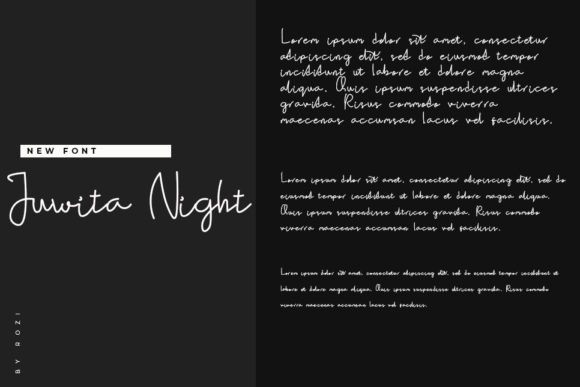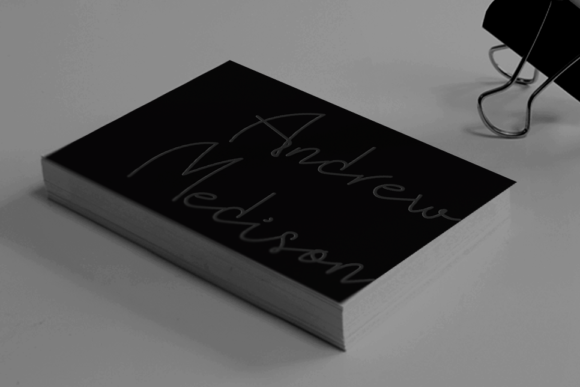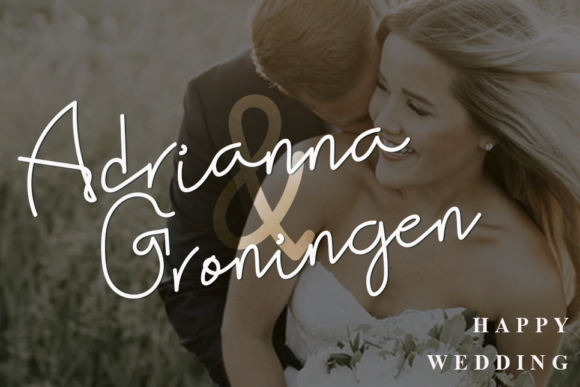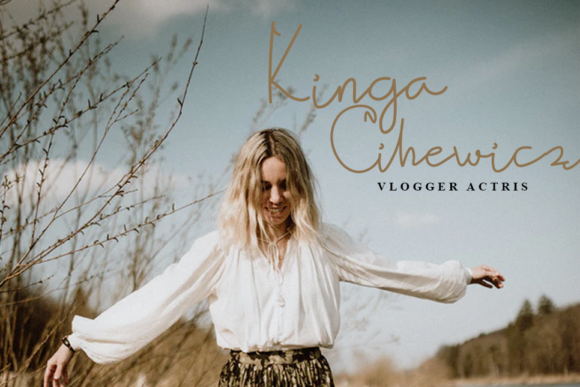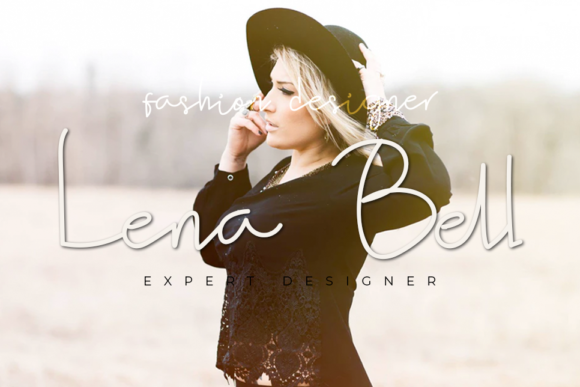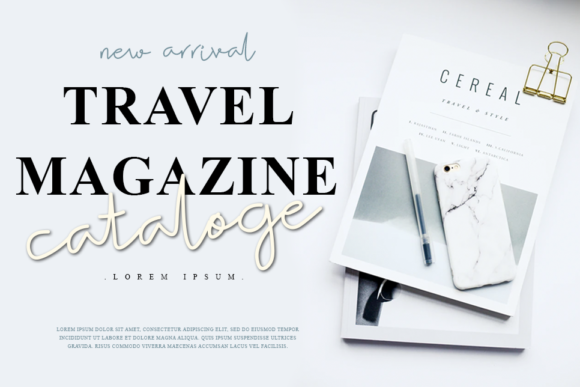
Introduction to Juwita Night Font
As designers, we’ve all been there – staring at a blank canvas, struggling to find the perfect font to bring our creative vision to life. But what if that elusive font was right in front of us, waiting to be discovered? Enter the elegant and sophisticated Juwita Night Font, a true masterpiece that seamlessly blends classic calligraphy with modern flair.
With its refined, handwritten style, the Juwita Night Font is the perfect design resource for any creative project that demands high-quality visuals. Whether you’re crafting a stunning title, designing a set of stationery, or creating a beautiful letterhead, this versatile font is sure to impress. And the best part? It’s available for free download, making it an accessible and valuable addition to any designer’s toolkit.
Key Features of Juwita Night Font
- Unique, hand-drawn design with a high level of detail, making it a valuable design resource for creative projects.
- Perfect for use in design projects that require a touch of elegance and sophistication, such as branding, invitations, or digital art.
Honest Review: Juwita Night Font
I recently stumbled upon the Juwita Night Font and was immediately drawn to its unique, elegant design. As a designer, I appreciate high-quality design resources that can elevate my creative projects, and this font definitely delivers. The transparent background and clean lines make it perfect for a variety of applications, from branding to editorial content.
Here are some of the things that work well with the Juwita Night Font:
- ✨ Unique and elegant design that sets it apart from more generic fonts
- ✨ High-quality typography that’s perfect for both digital and print applications
- ✨ Transparent background makes it easy to customize and pair with other design elements
That being said, there are a few limitations to consider:
- ⚠️ Limited character set, which may not be ideal for longer texts or body copy
- ⚠️ Not suitable for use in small sizes or low-resolution displays
Overall, I’m impressed with the Juwita Night Font and would definitely recommend it as a design resource for creative projects. It’s a great addition to any designer’s toolkit, and I appreciate that it’s available for free download.
One of the unique features of the Juwita Night Font is its ability to work well with a transparent background. This makes it perfect for designing creative projects that require a high-quality, transparent font.
The Juwita Night Font is commonly used in various design projects such as logo design, social media graphics, and brochure design. Its high-quality design and transparent background make it perfect for creative projects that require a professional and stylish look.
Is the Juwita Night Font suitable for high-quality printing?
Yes, the Juwita Night Font is designed to be high-quality and suitable for printing. It has been optimized for clear readability and maintains its crispness even at large font sizes. You can use it for various printing purposes, including business cards, brochures, and posters.